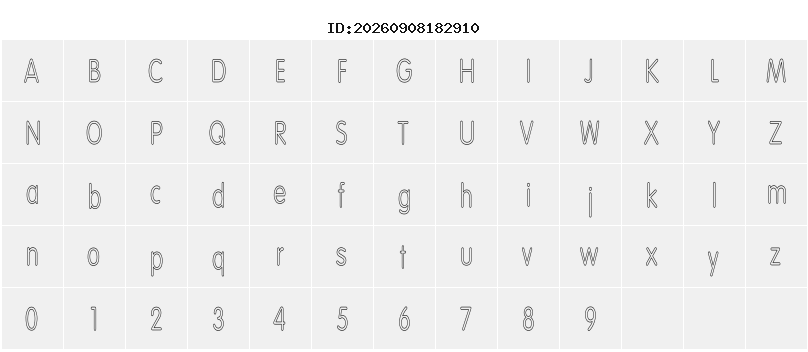
About Volte-NormalHC.ttf
Volte-NormalHC.ttf is a modern, elegant sans-serif font designed for ultimate readability and visual harmony. Perfect for branding, headlines, web design, and print materials.